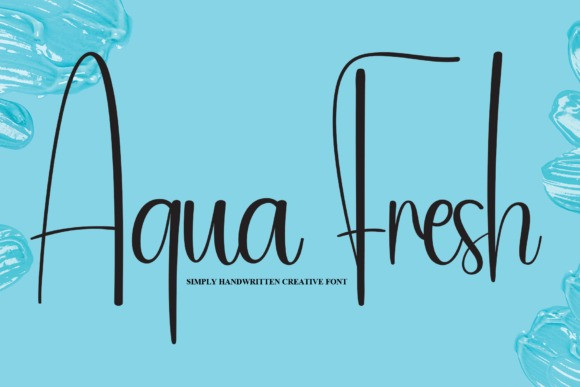
Aqua Fresh Font
Aqua Fresh Font is a sweet and friendly handwritten font. Fresh and neat, this font is ideal for writing wedding invitations, cards, or any other design that might need a fun touch!